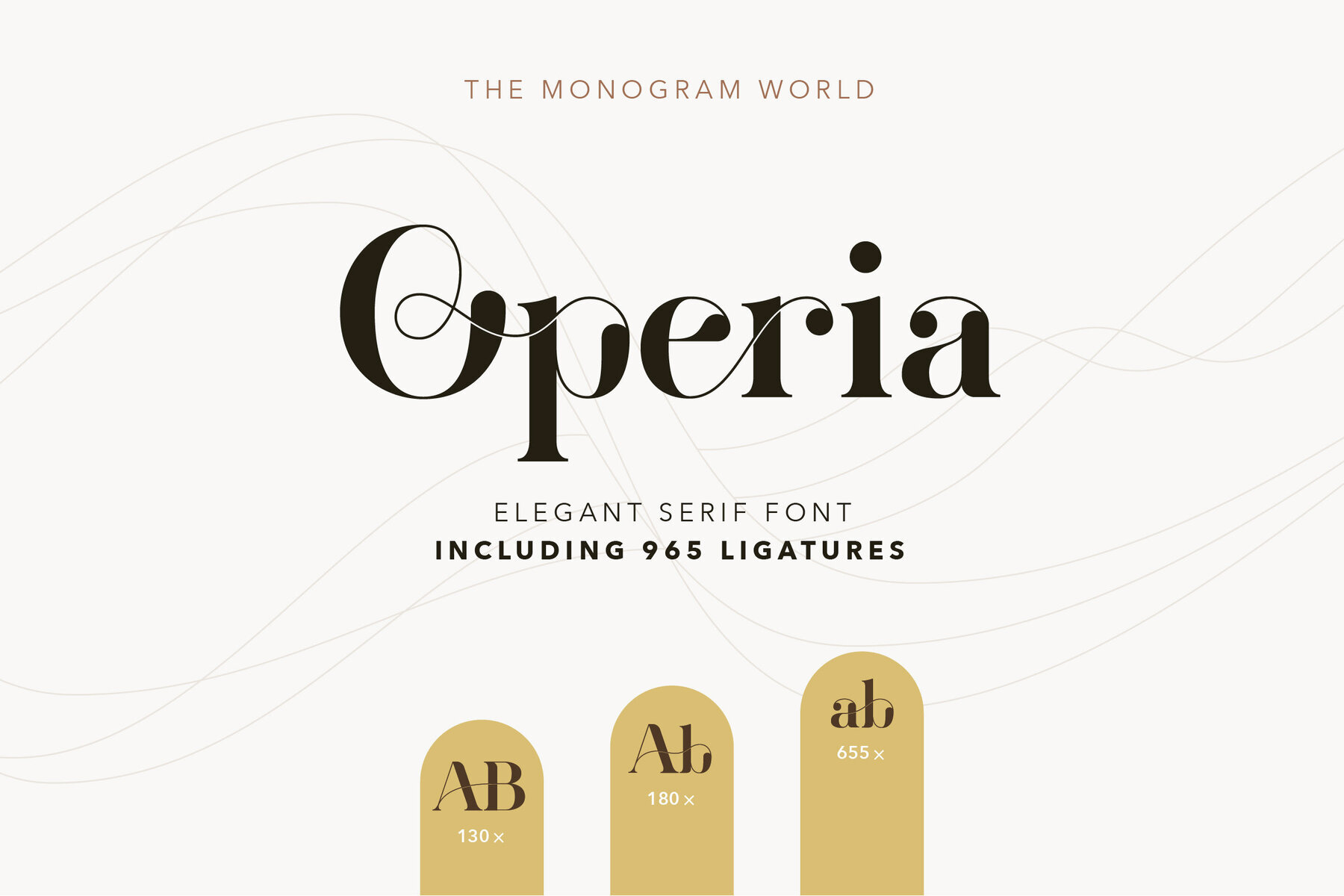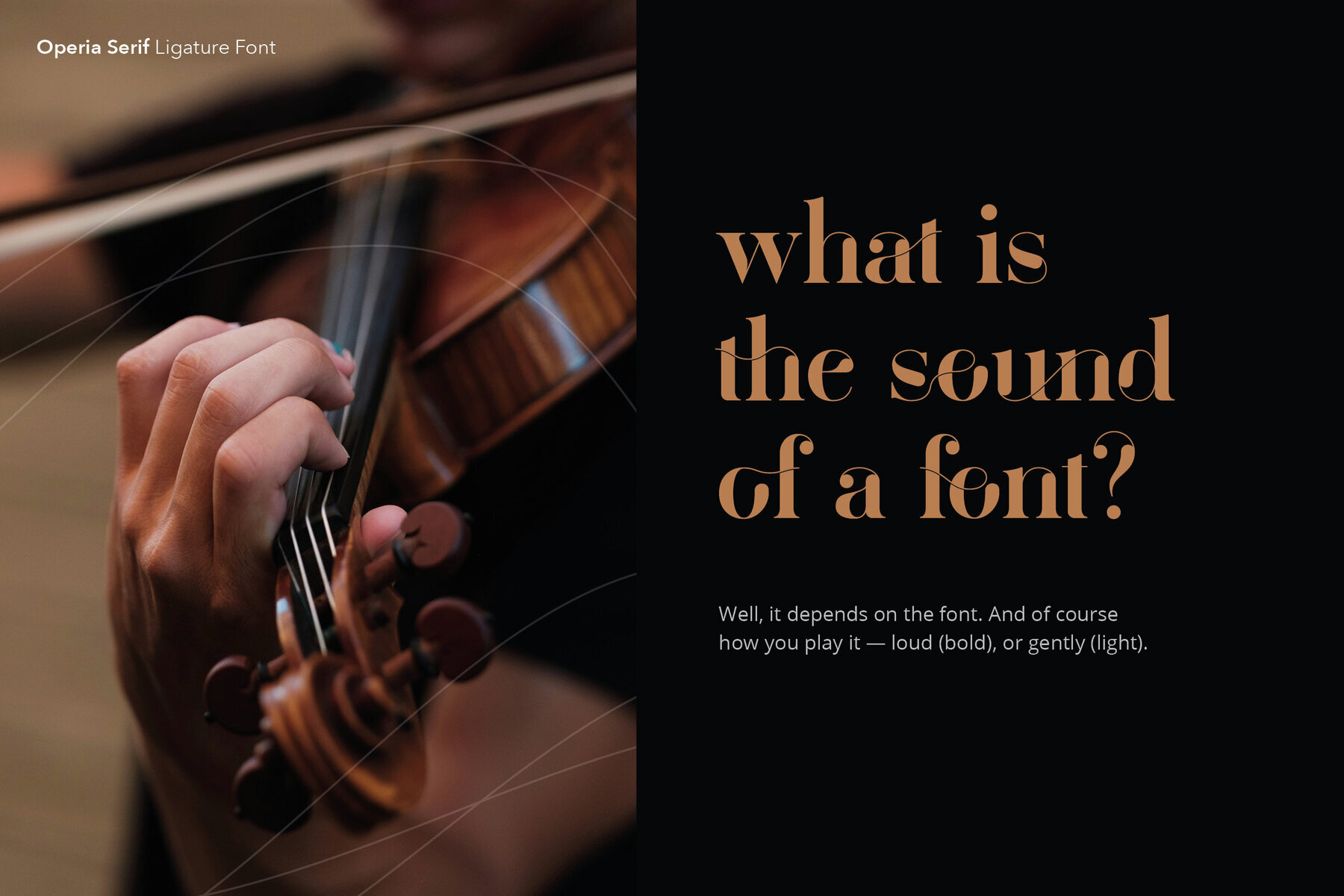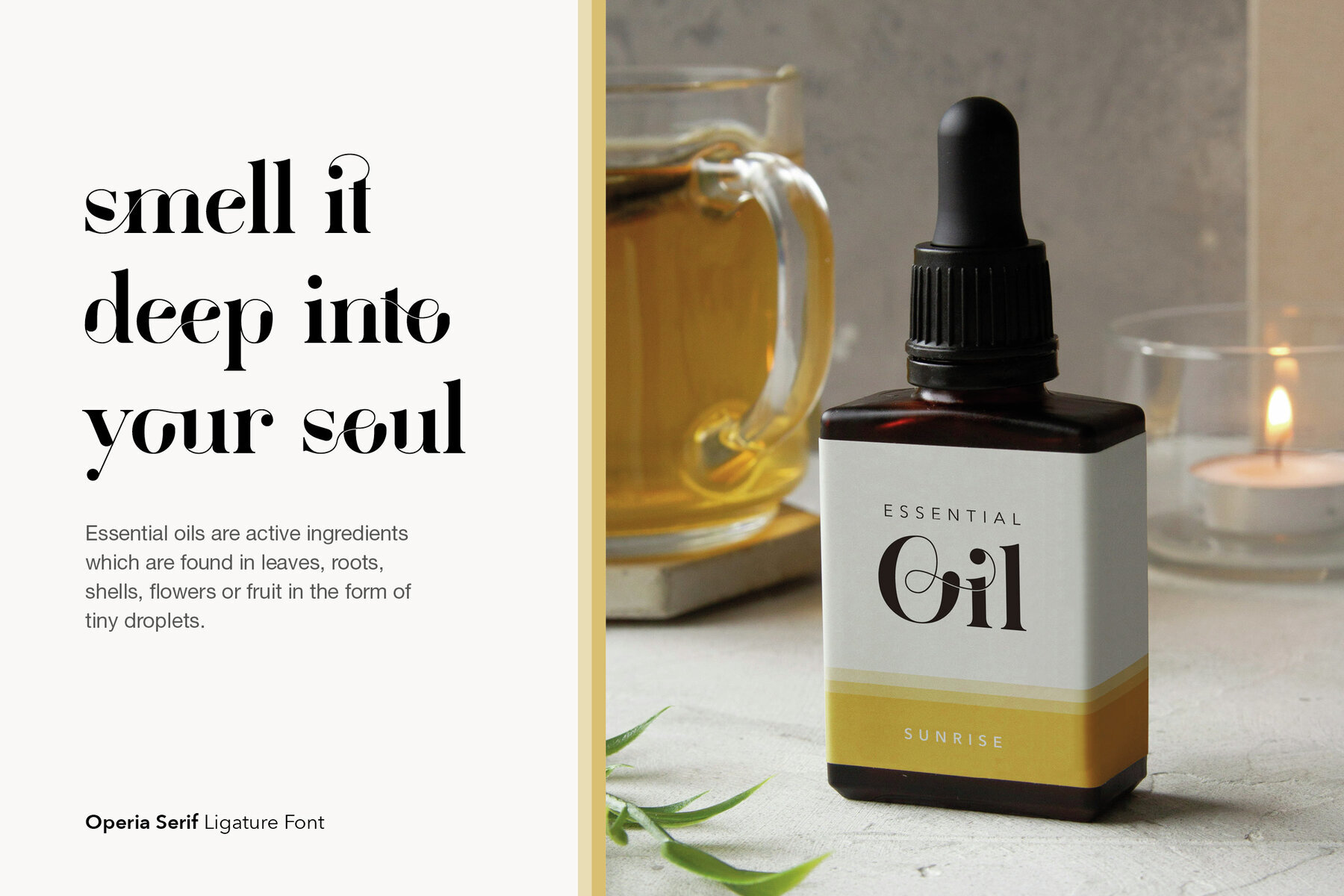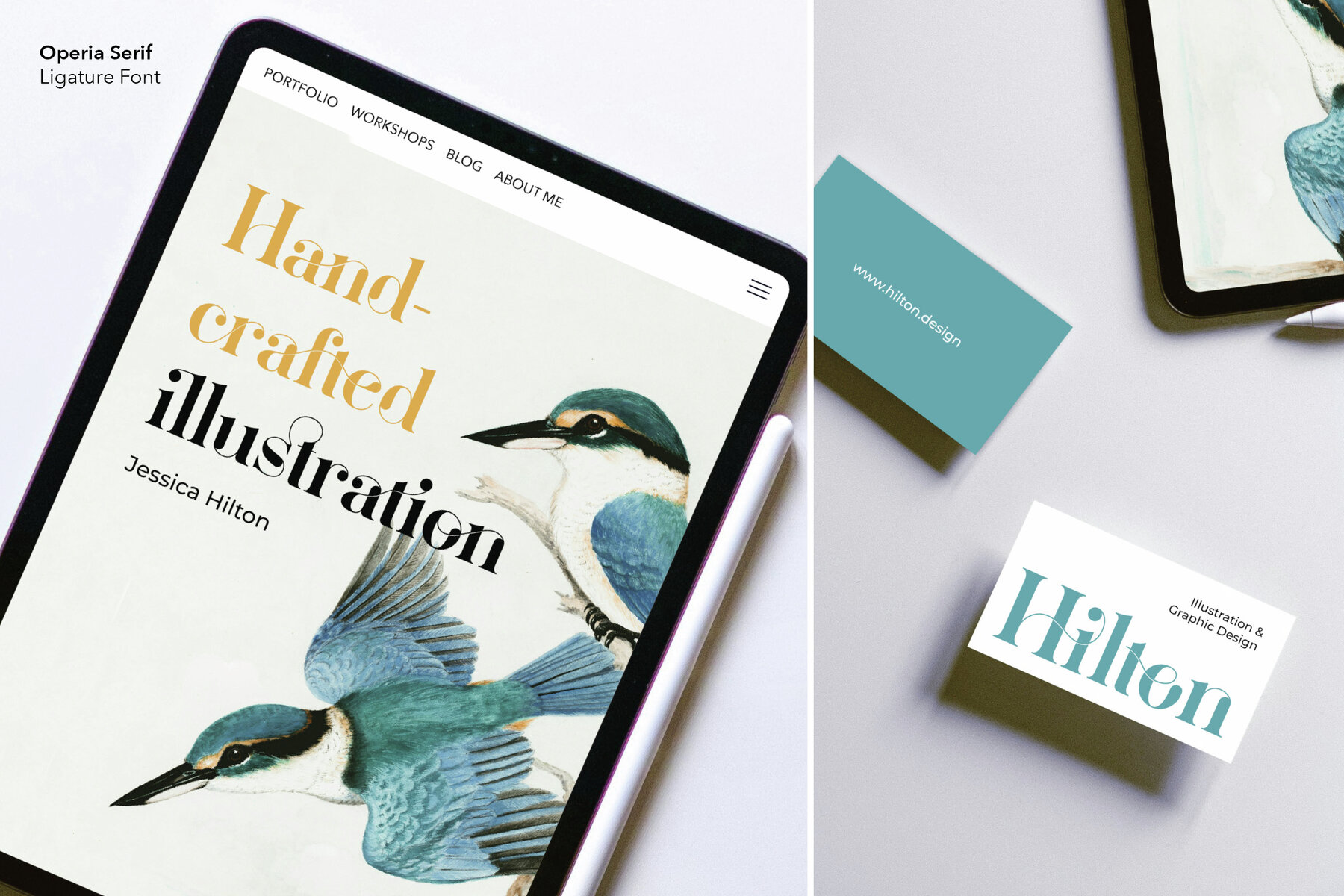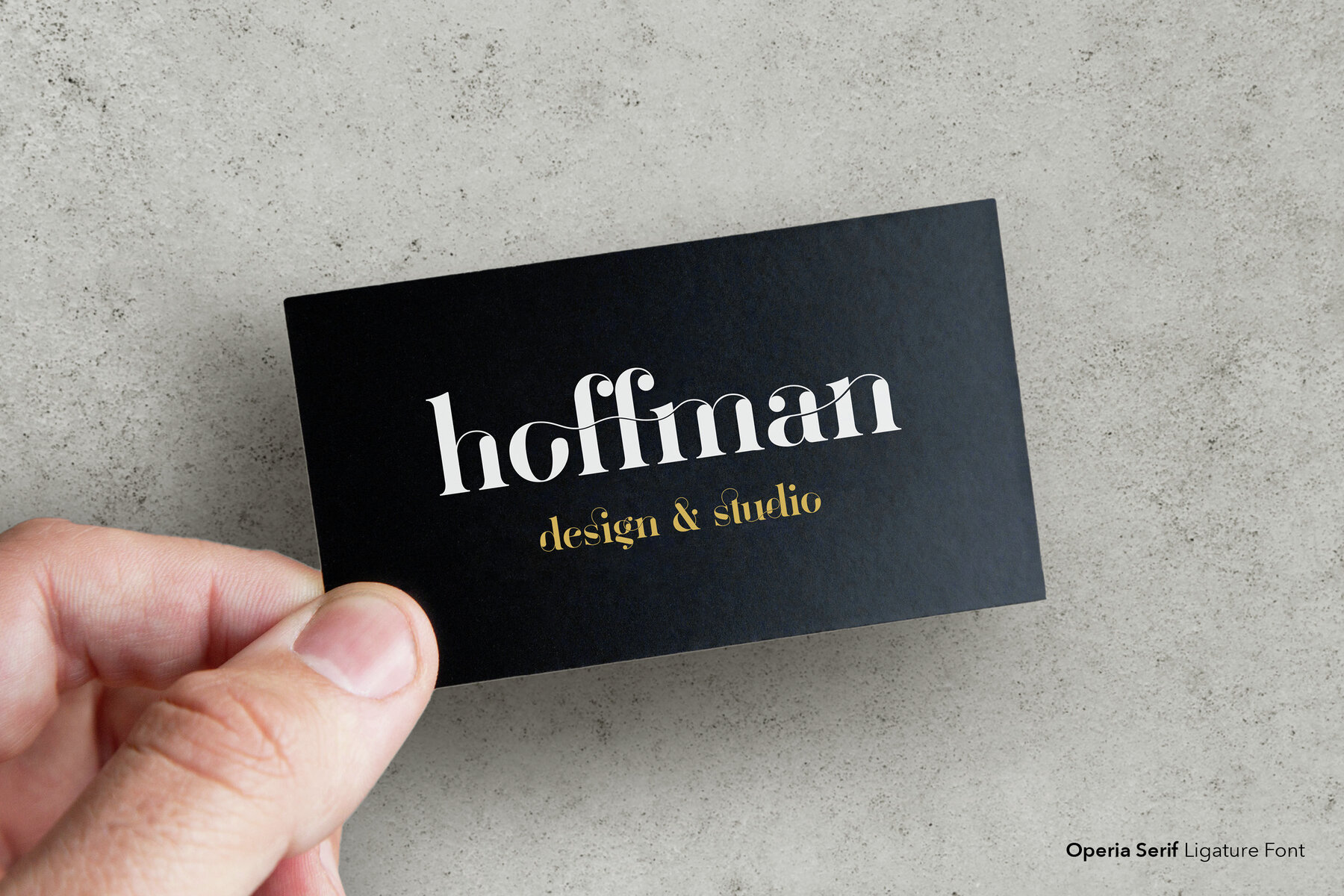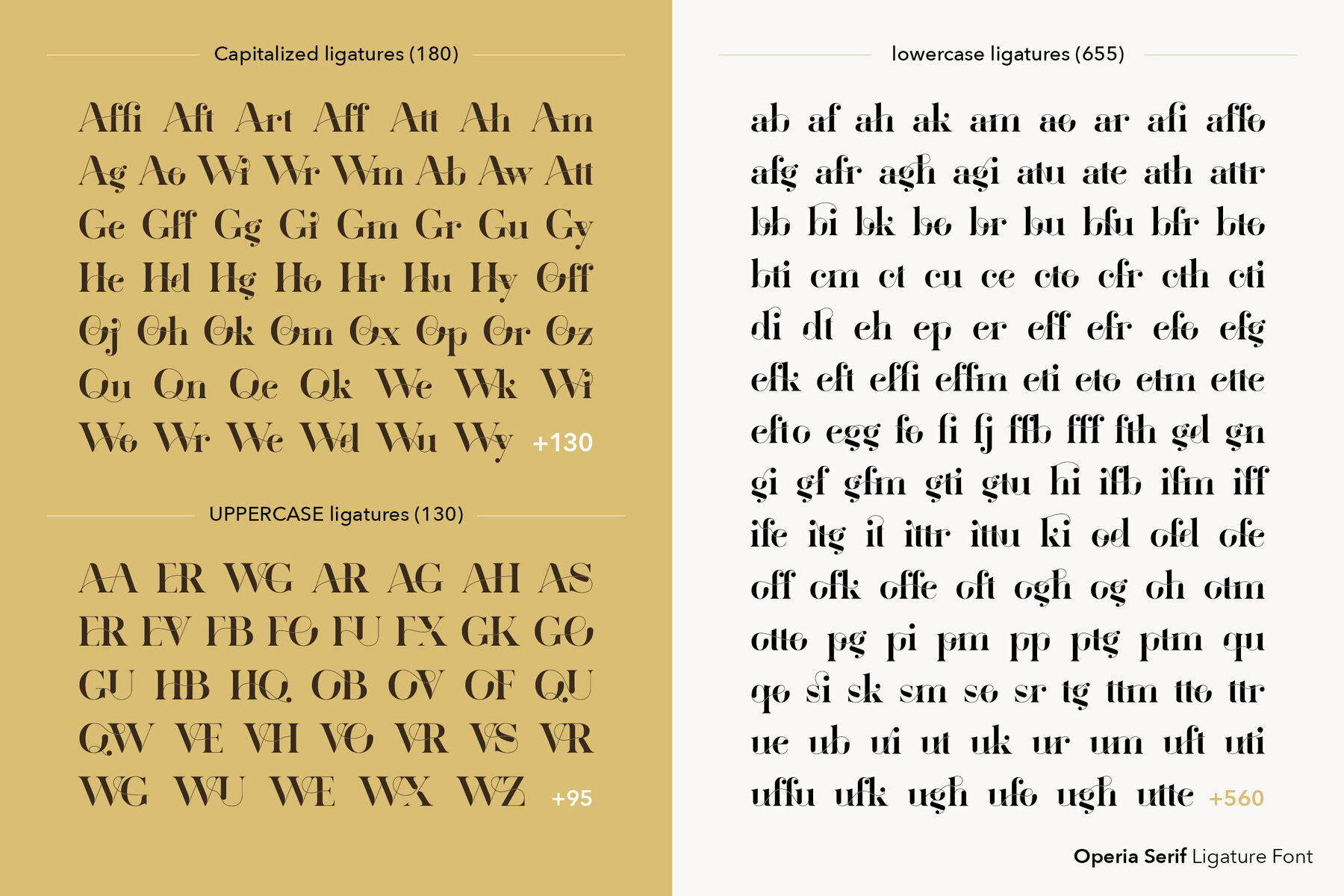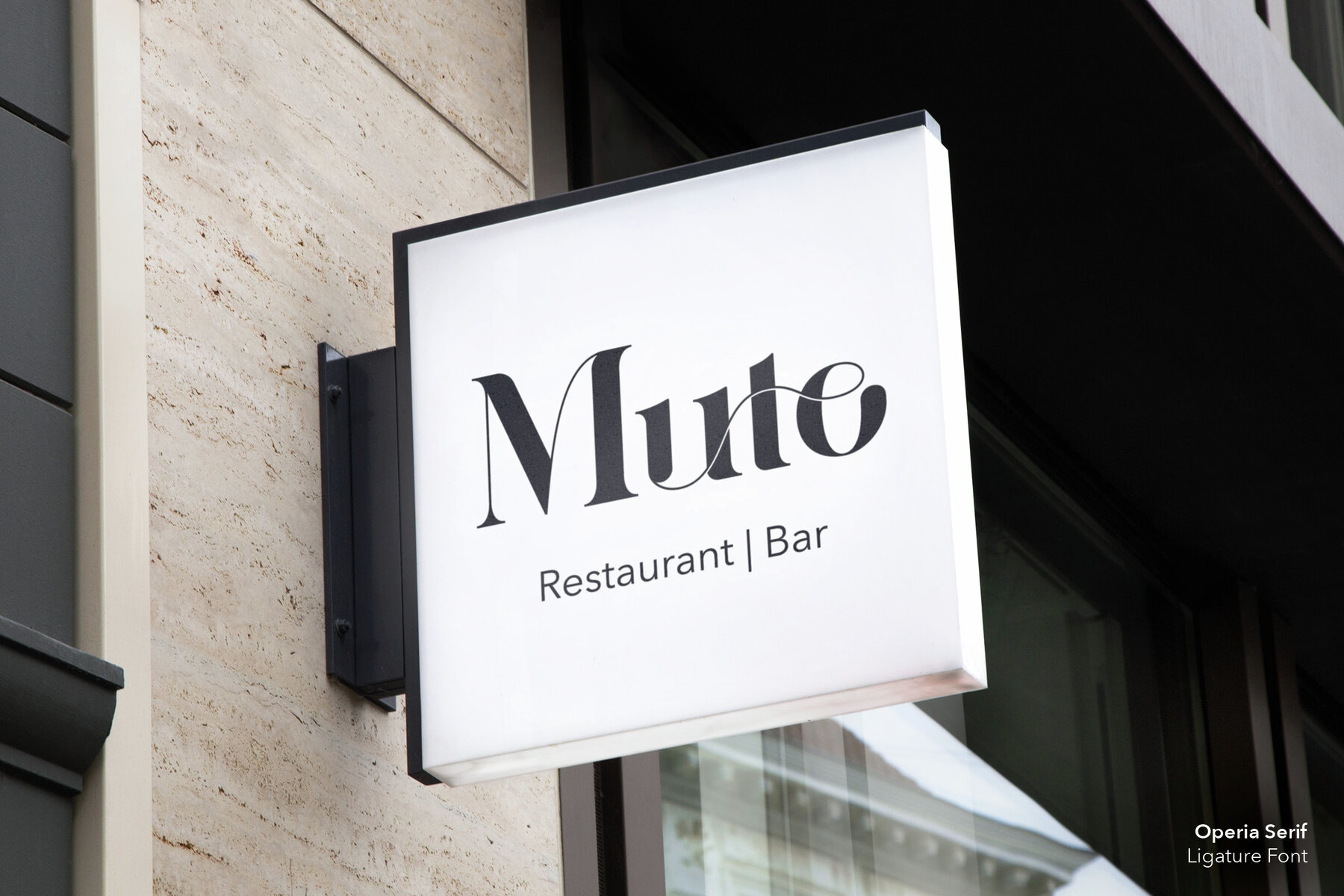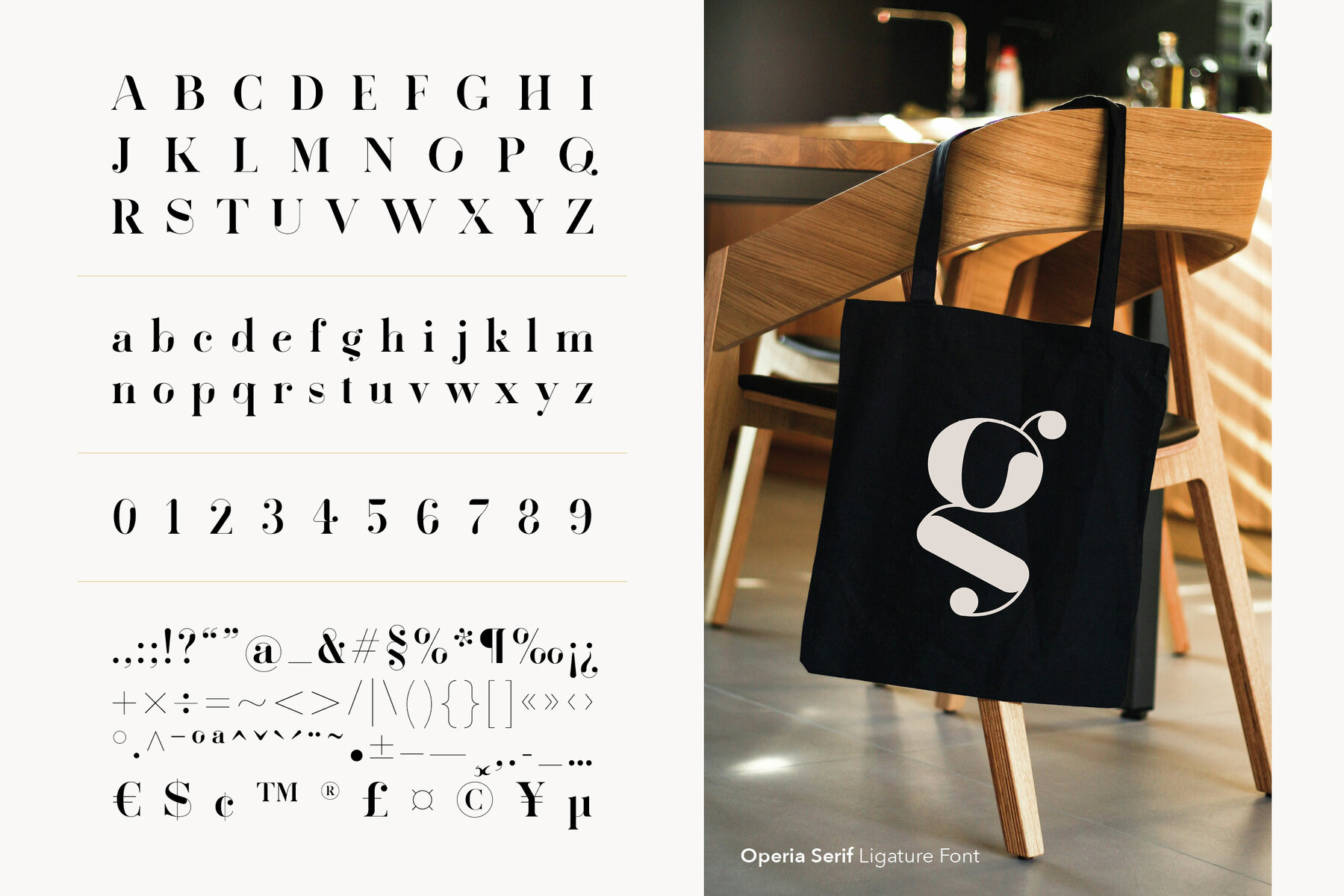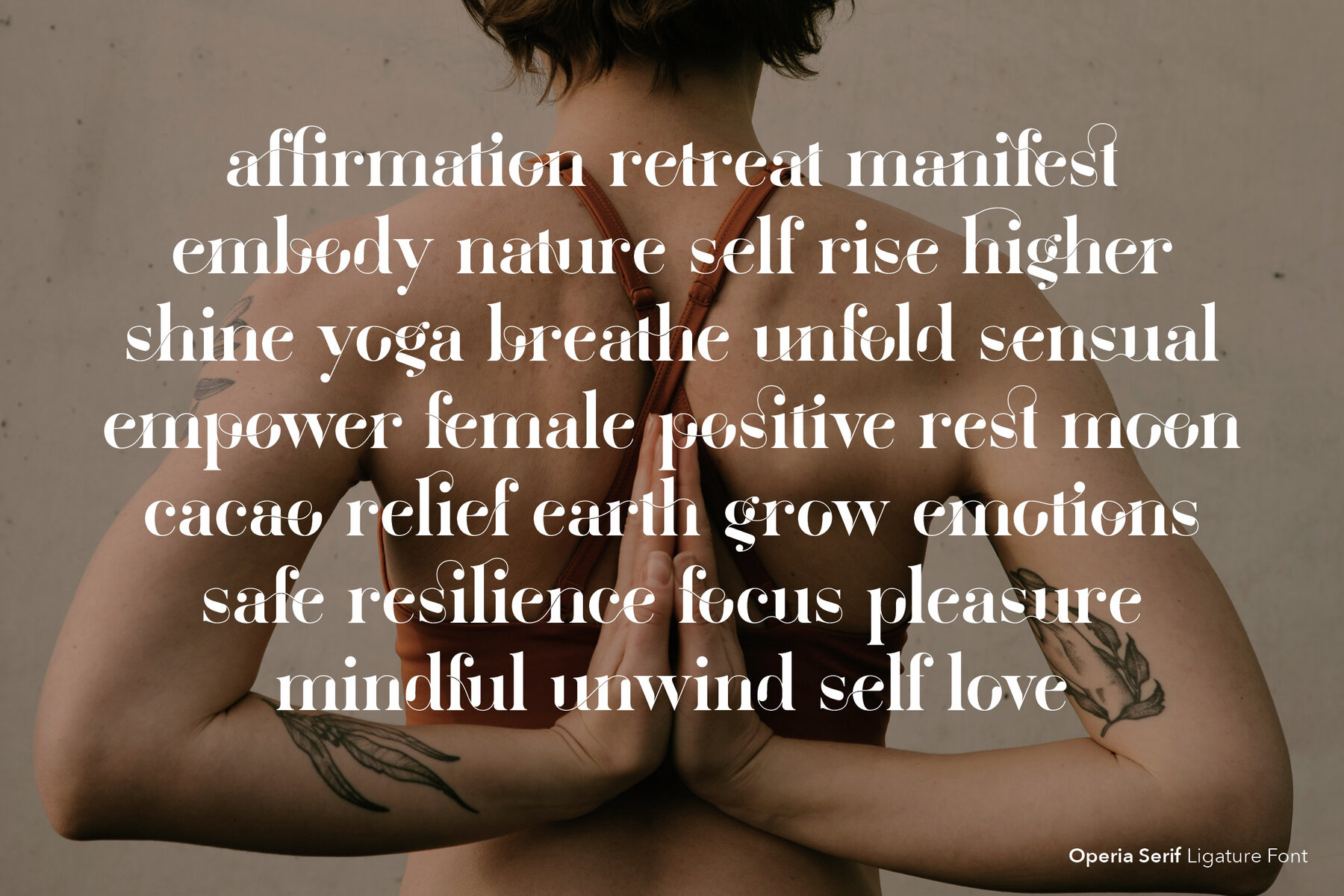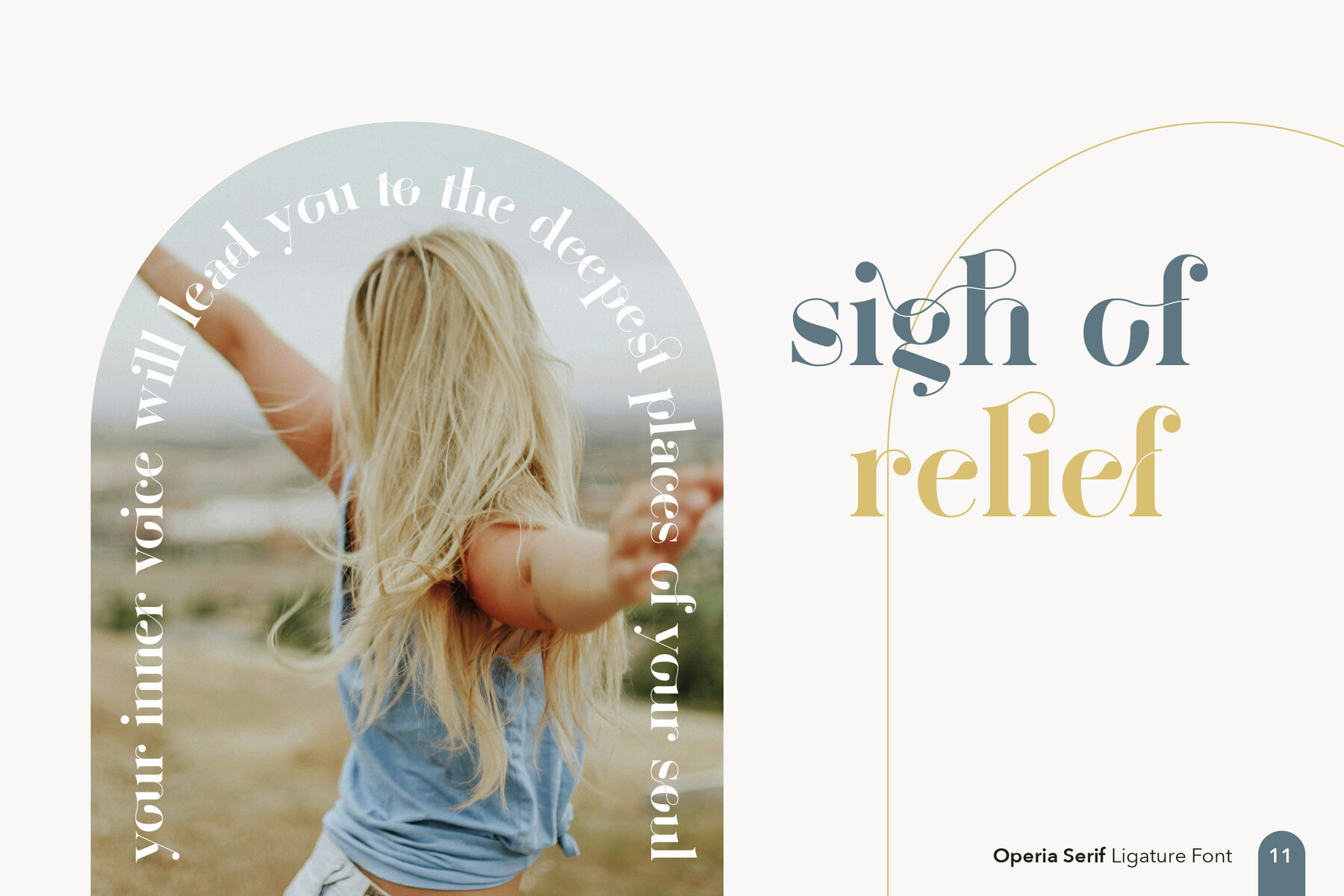
Operia Font
Operia Serif
Operia is a meticulously crafted serif font, featuring striking contrast and extensive ligature options. With an impressive 965 uniquely connected letters, available in uppercase, lowercase, and capitalized forms, Operia offers a seamless and fluid typographic experience. With its gentle connections reminiscent of soothing orchestral melodies, this typeface is both unique and contemporary. Operia harmonizes beautifully with geometric and humanist sans serif fonts such as Franklin Gothic, Avenir, Helvetica, Open Sans, and Lato, whether italic or regular. This Display typeface shines in various fields including logos, packaging, and prominent headlines, especially in areas like yoga, lifestyle, design and arts, interior design, fashion, weddings, and more. Whether for jewelry or mindfulness, Operia brings a touch of elegance inspired by the architectural grace of aqueduct arches, while maintaining an individual identity.Operia: Elegance in Every Letter
Perfect Pairings
Versatile Use Cases